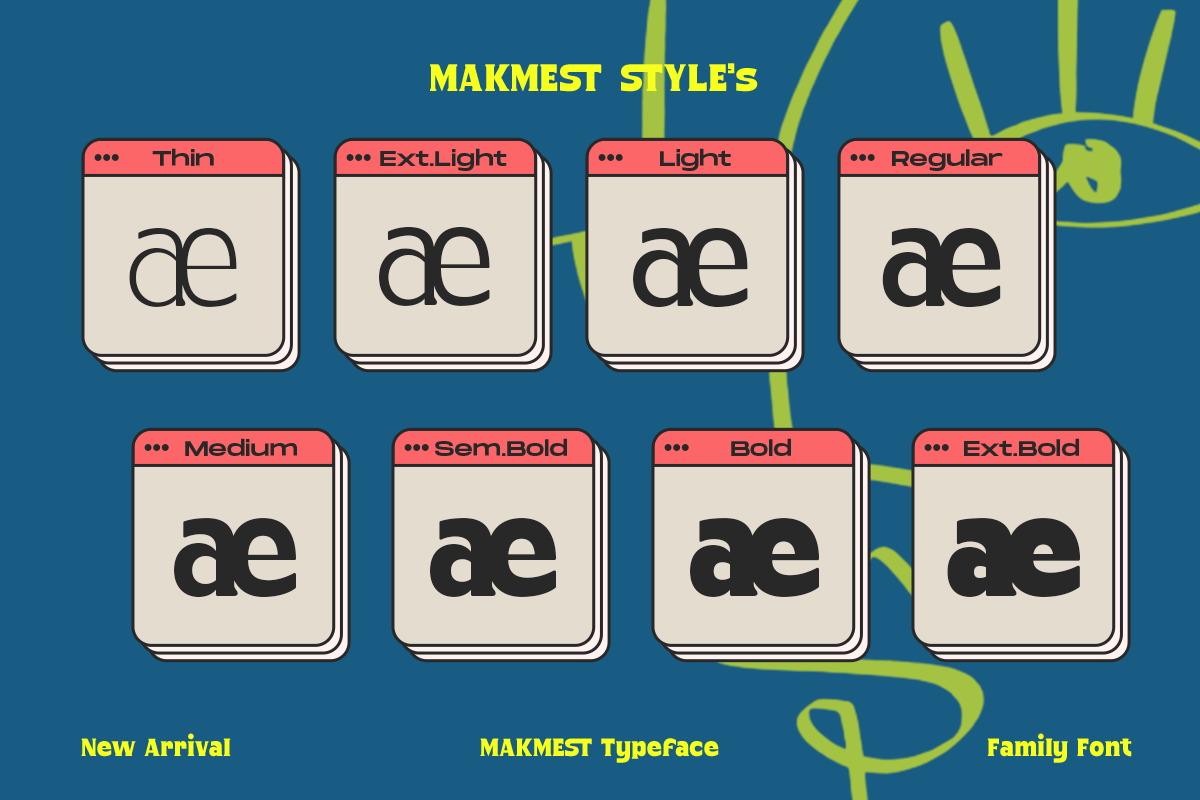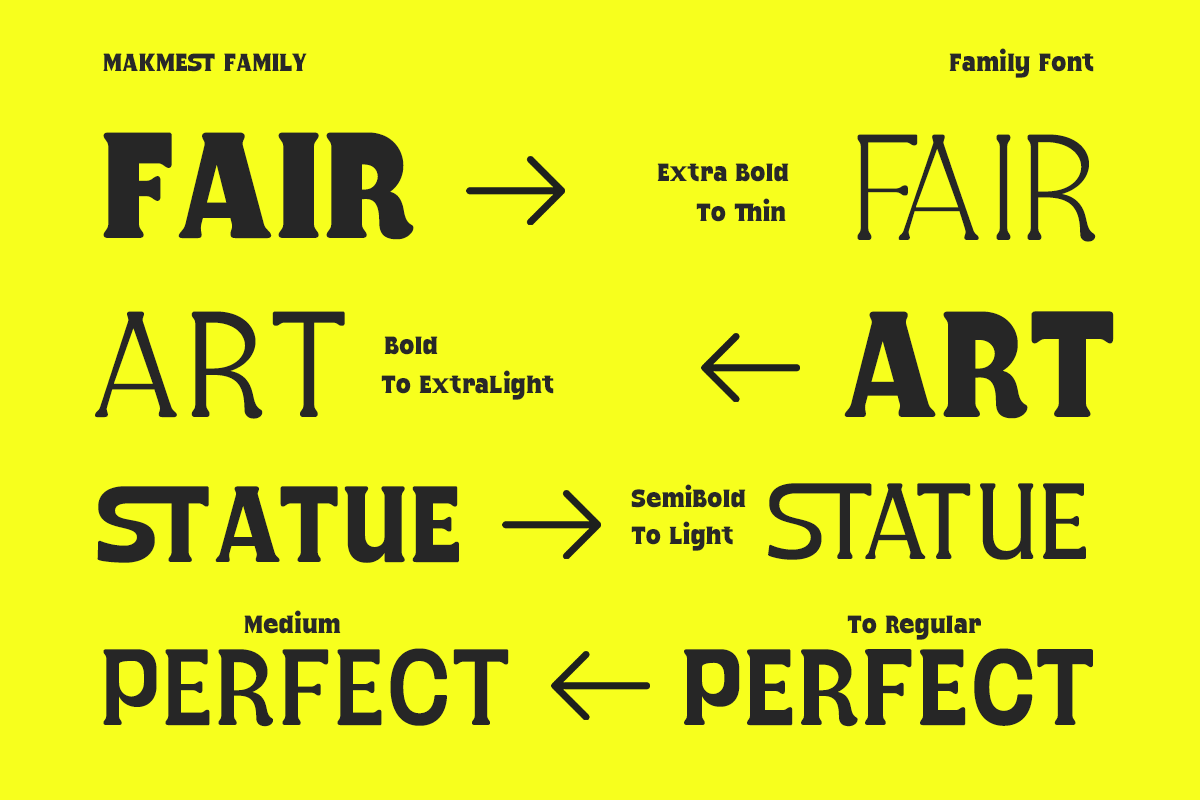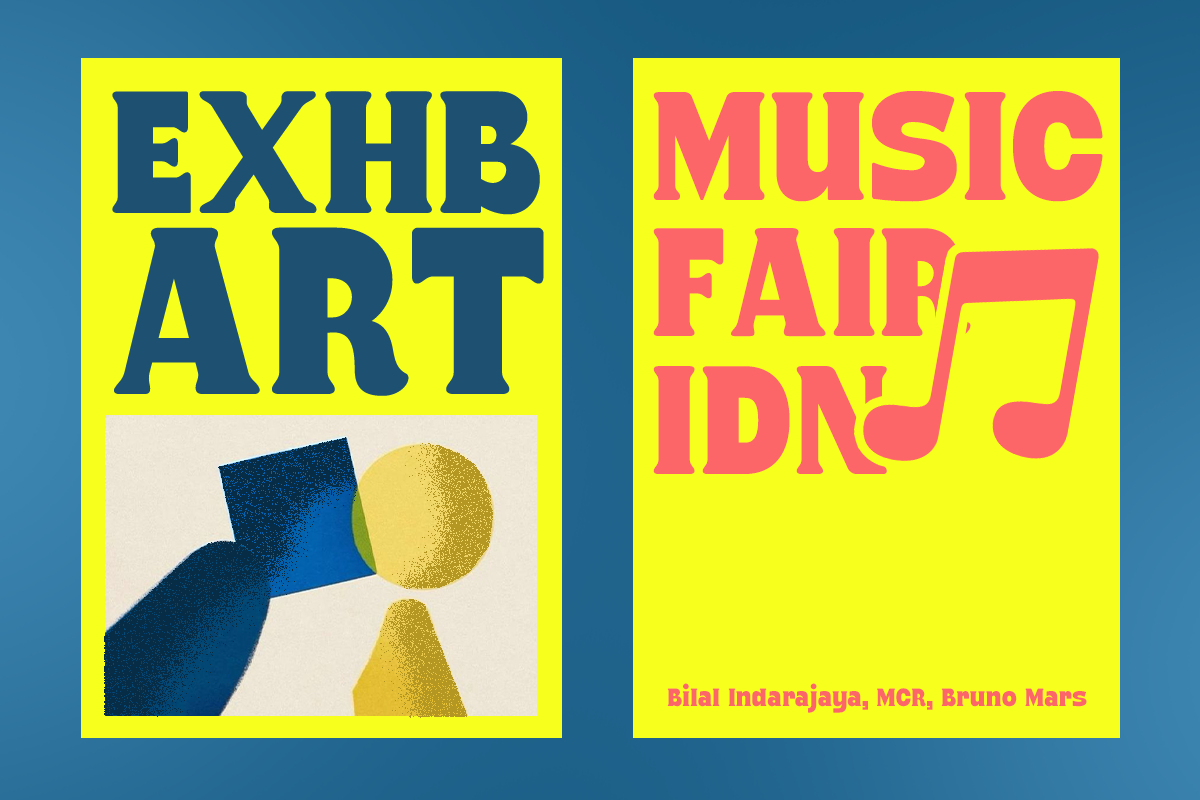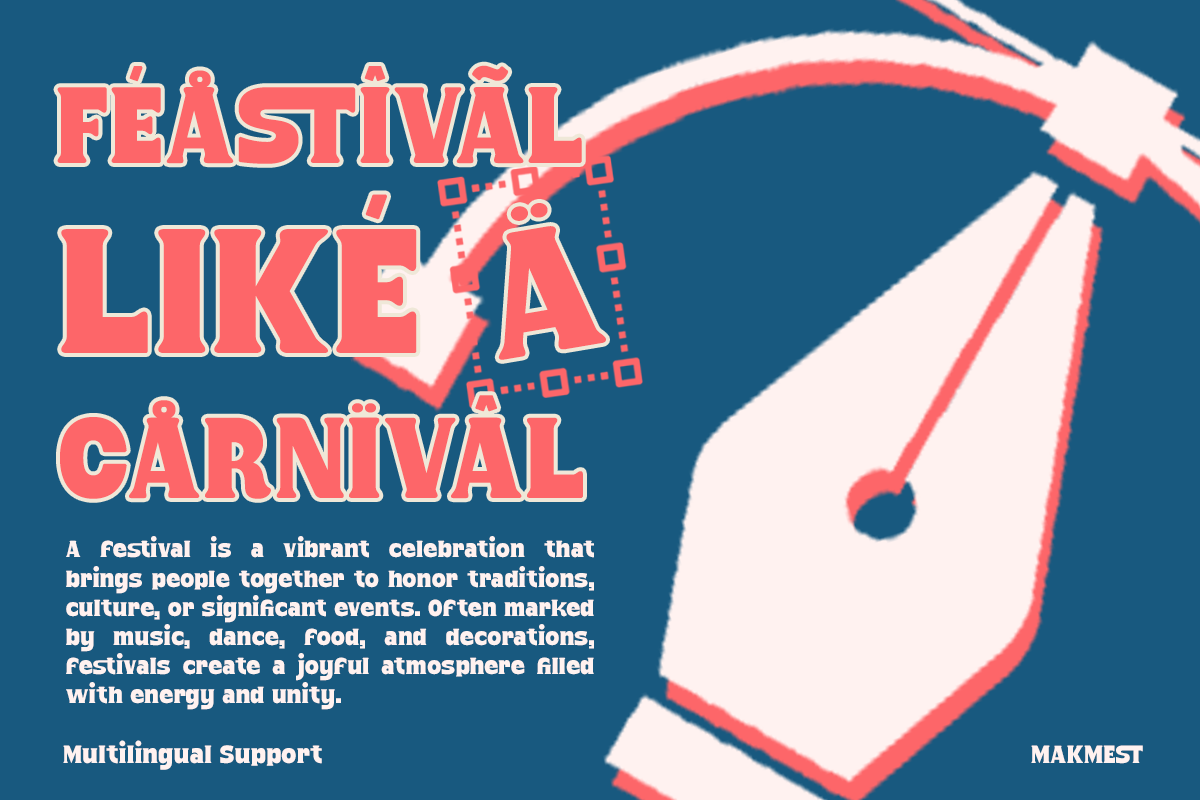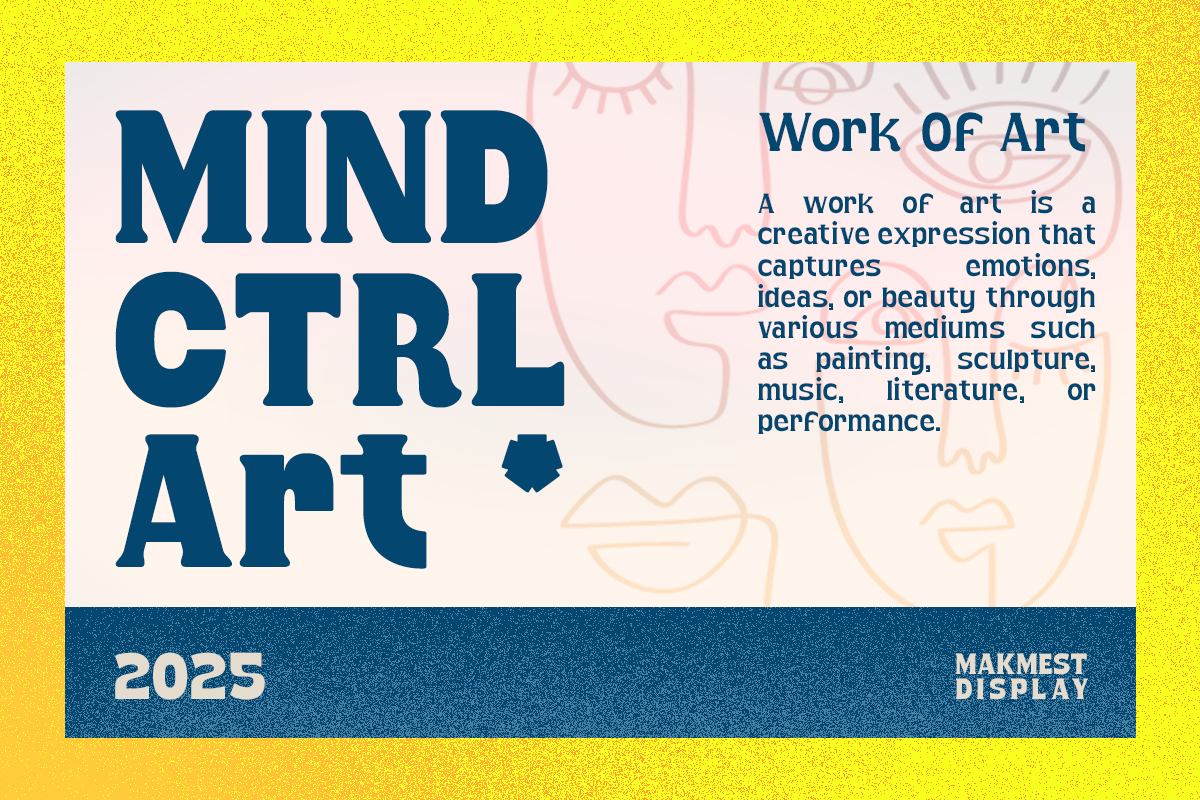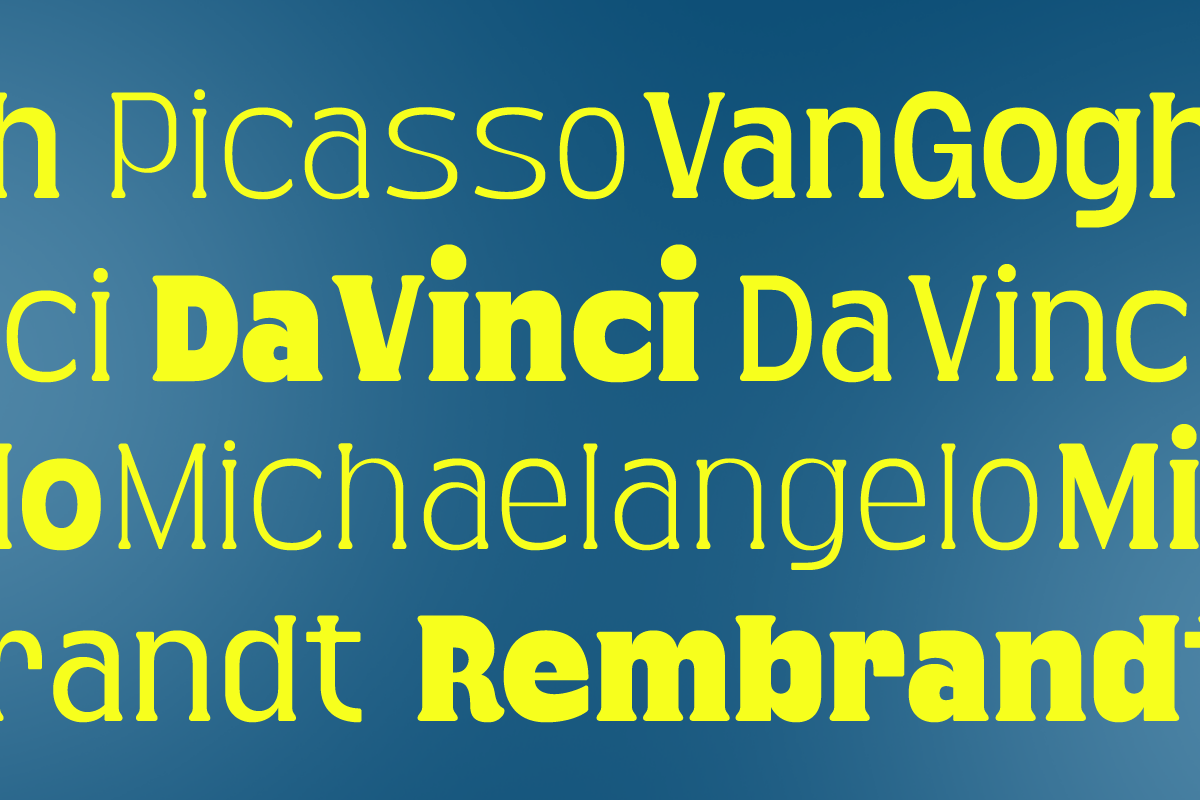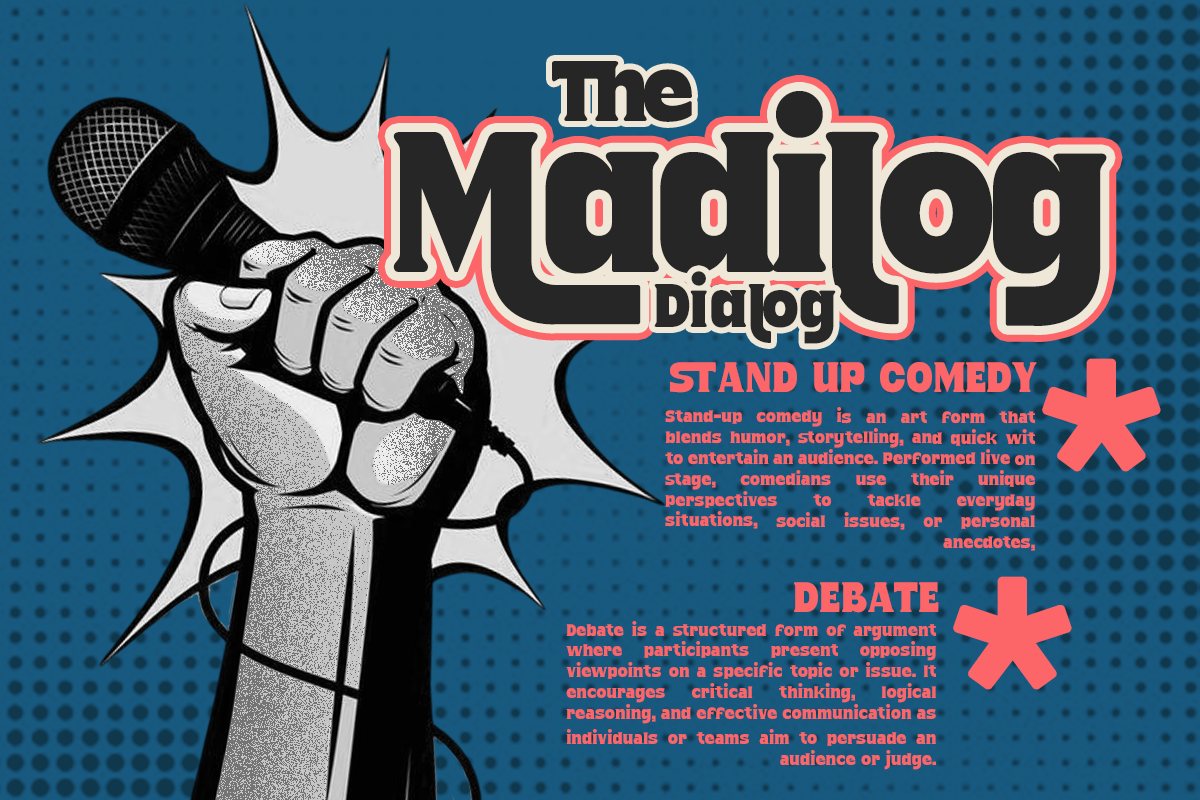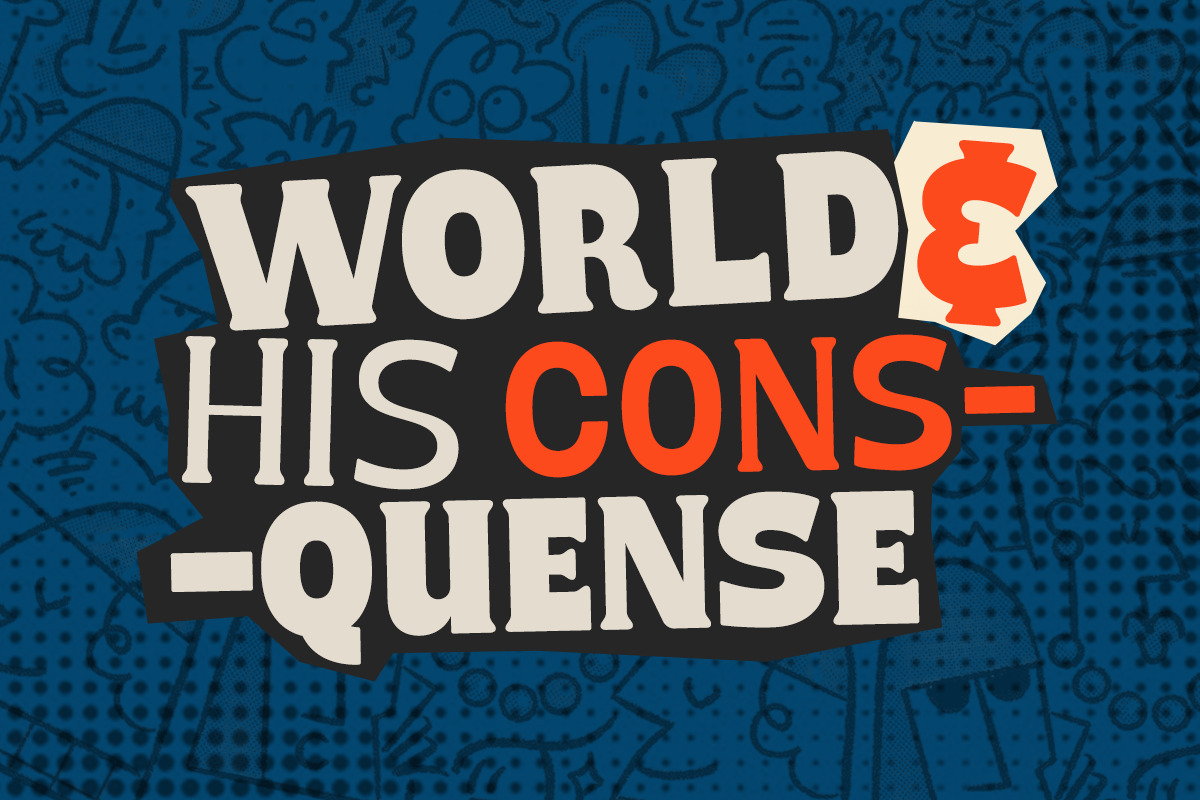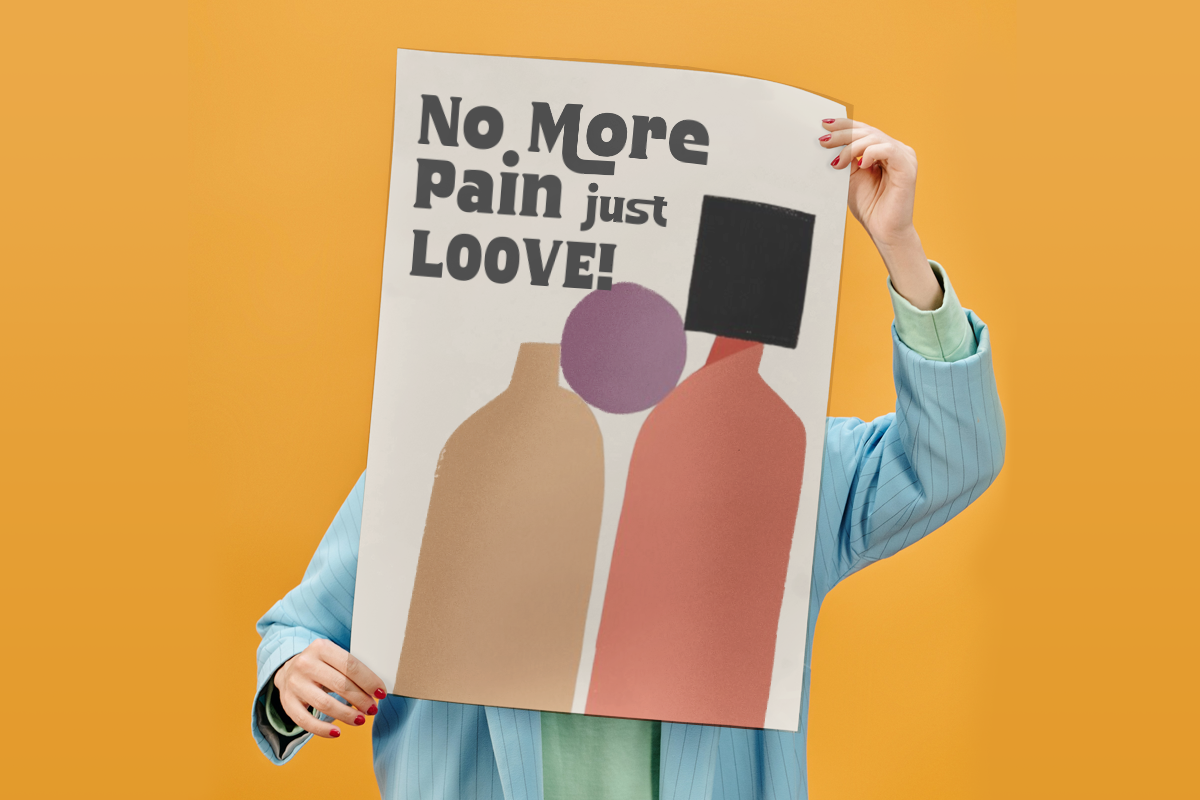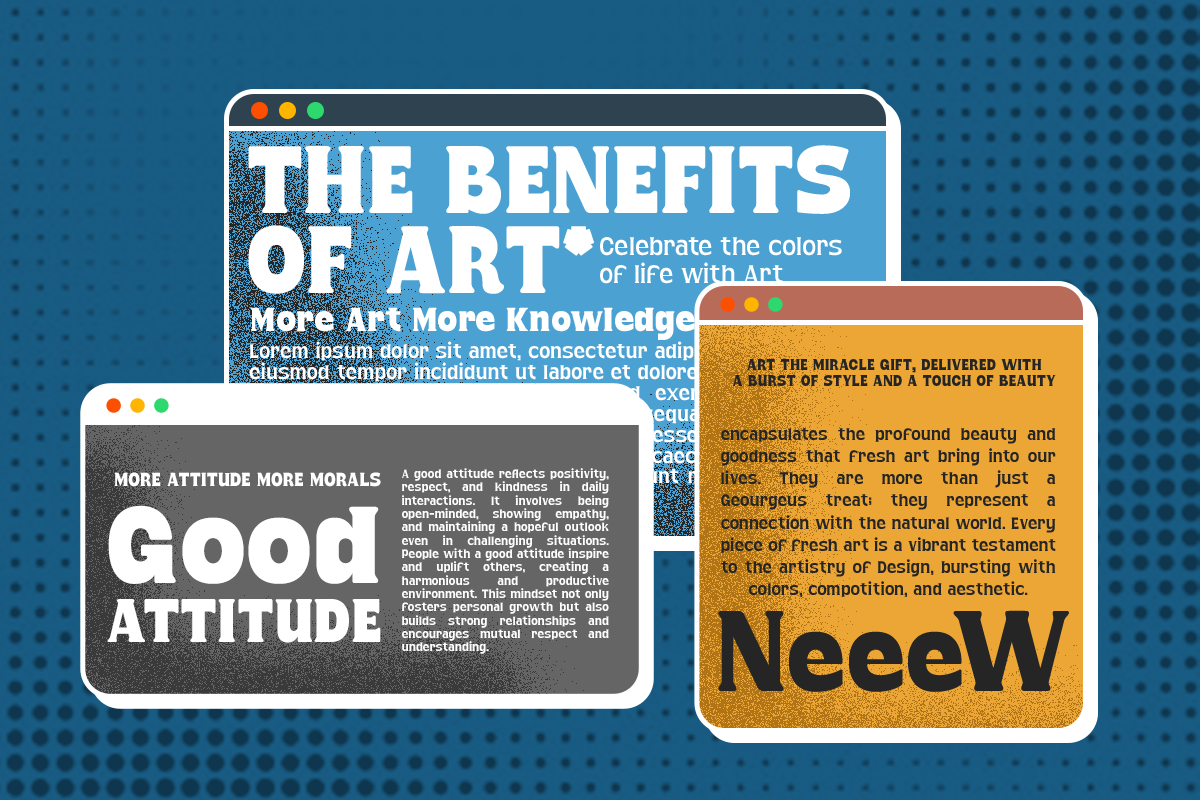
Makmest Retro Vibes Display Variable
Introducing Makmest, a bold and dynamic display font that brings a nostalgic touch to your designs with its retro vibes. Designed with a unique mix of geometric shapes and vibrant letterforms, Makmest is the perfect typeface to add energy and personality to any creative project. Whether you're designing posters, logos, product packaging, or any design that needs a modern twist with a vintage feel, Makmest delivers a distinctive style that stands out.
- A playful and bold display font with retro flair
- Geometric, vibrant, and modern letterforms
- Ideal for headlines, logos, posters, and branding
- Includes uppercase and lowercase letters, numbers, and symbols
Perfect for projects that need a funky and retro aesthetic
Make a statement in your designs with Makmest, a versatile font that’s ready to give your creative work a fun, vintage-inspired twist.